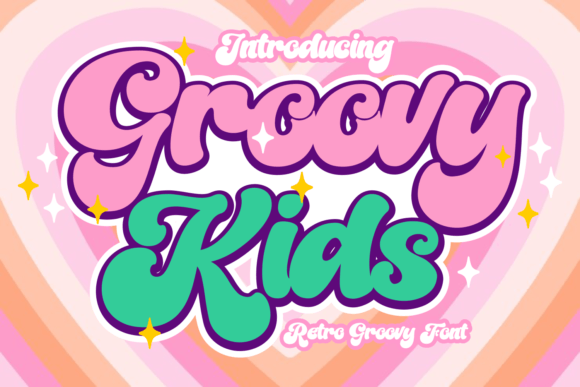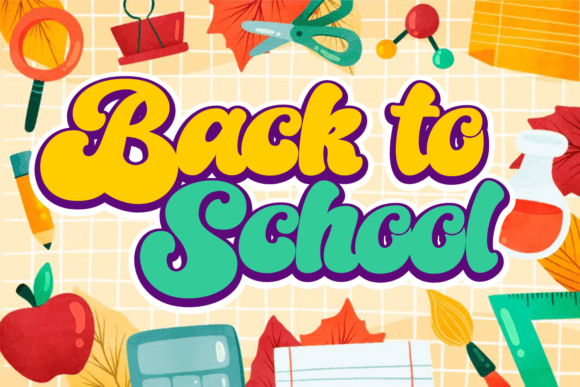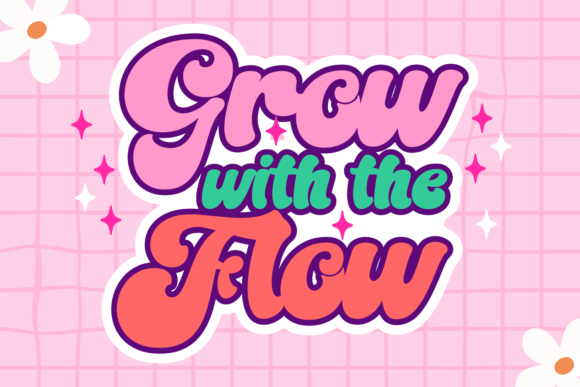
Groovy Kids Font: A Cute Retro Typography for T-Shirts & Cricut Crafts
About the Groovy Kids Font
Get ready to be inspired by Groovy Kids Font, a fresh and dynamic typeface for modern creators. Groovy Kids is a cute and charming display font. Whimsical and a bit quirky, this font will brighten up each of your designs. Add it confidently to your projects, and you will love the results.
Groovy Kids shines in display applications such as logos for children’s brands, playful headlines for posters or invitations, and packaging for toys or sweets. Its quirky charm is less effective for body text or UI elements where readability over extended lengths is crucial.
The font’s core personality is undeniably playful and friendly. To balance this, pairing it with a clean sans-serif like Open Sans for body copy provides a strong contrast, or a more geometric sans-serif like Montserrat for a modern feel. For a more whimsical approach, consider a script font with a similar level of friendliness, but avoid anything overly decorative to prevent visual overload.
Consider Groovy Kids ideal for projects aiming for a youthful, approachable aesthetic. Brands targeting children, families, or those seeking a lighthearted and fun image would find it particularly suitable.
Groovy Kids Font Usage Examples
Groovy Kids Font Example